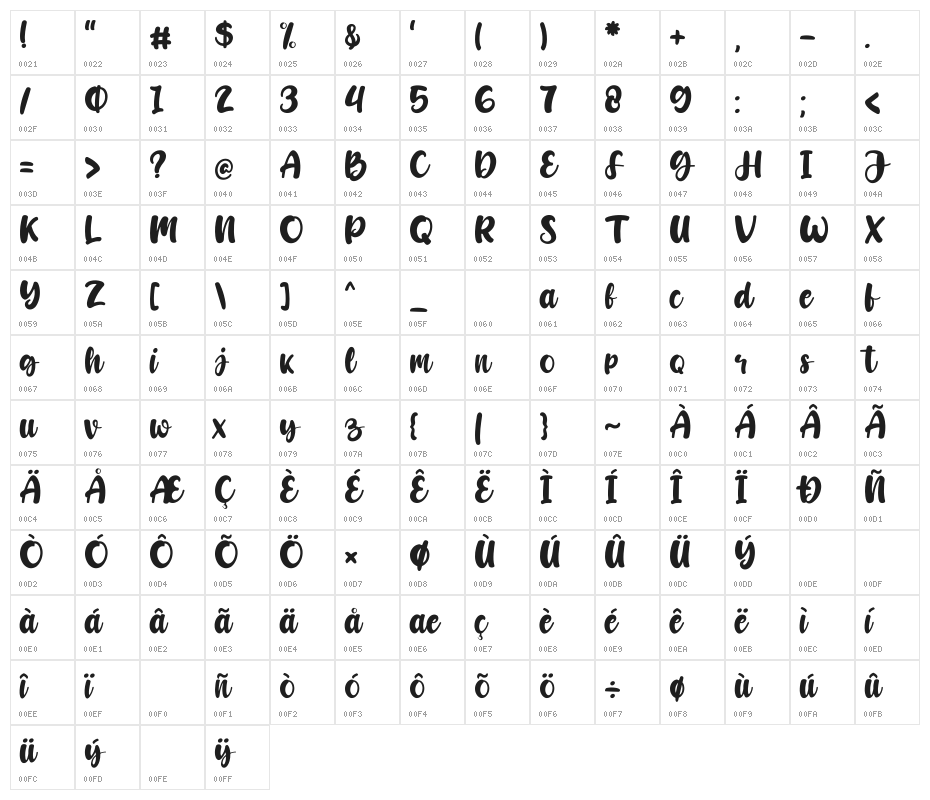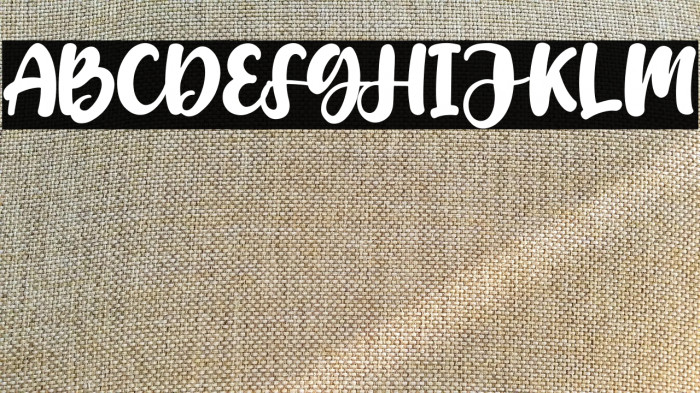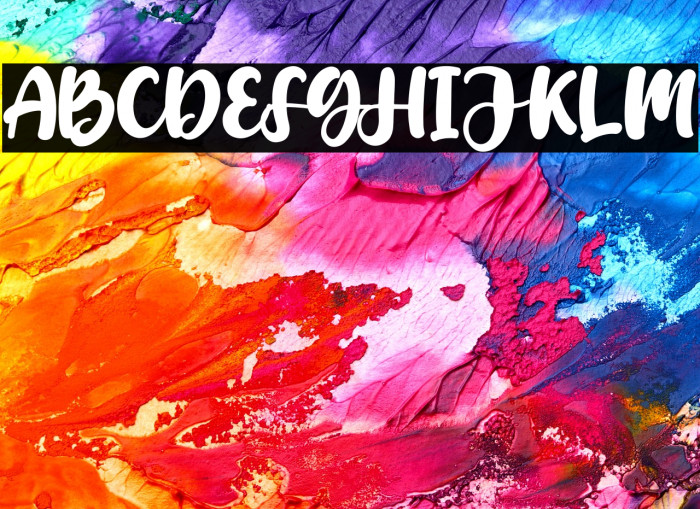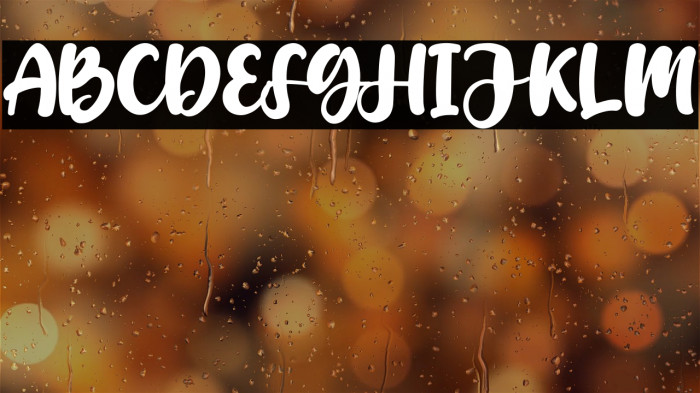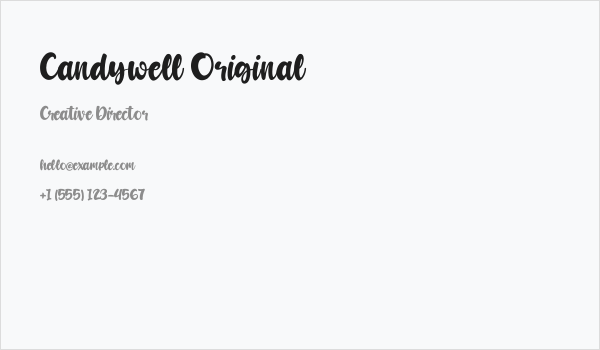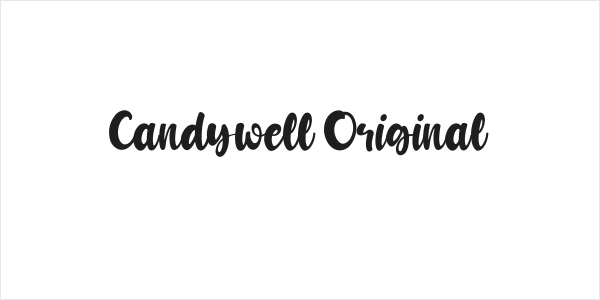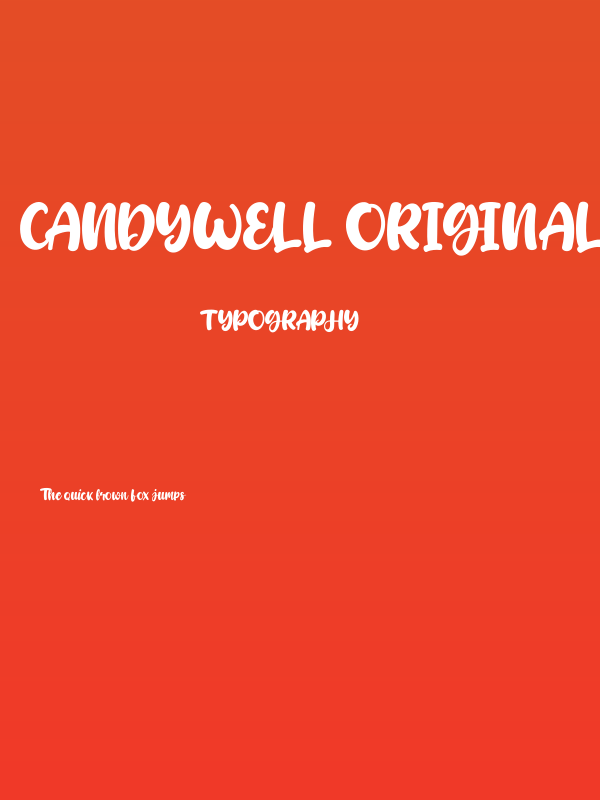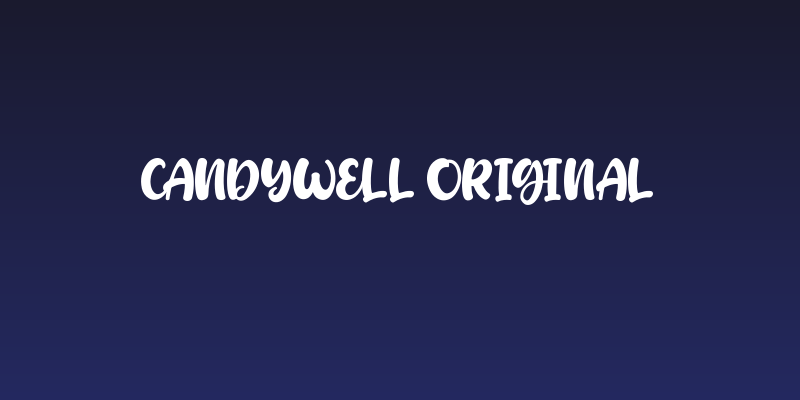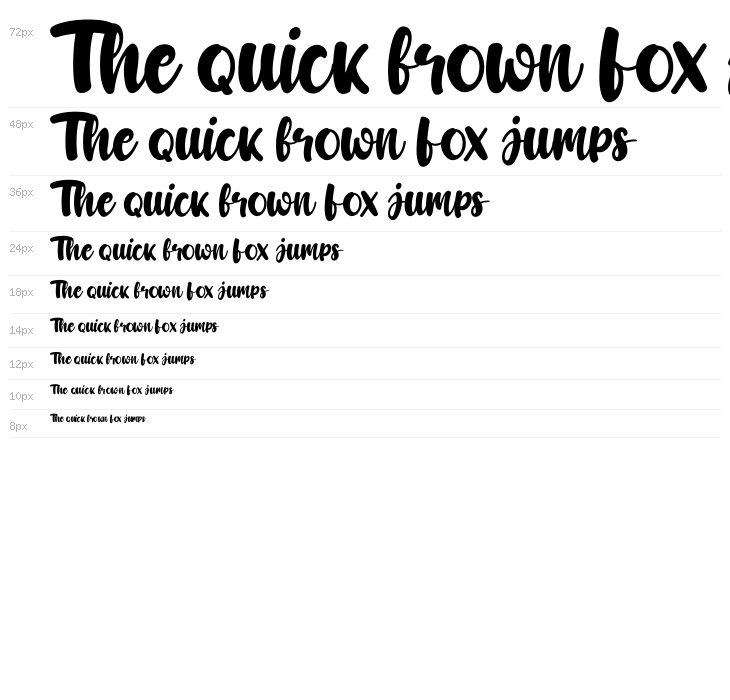
Candywell Original Font
Candywell Original Description
This font features a bold and playful script style with a handwritten appearance. The characters are rounded and connected, giving a sense of fluidity and movement. The uppercase letters are slightly larger and more pronounced, while the lowercase letters maintain a consistent flow. Numbers and special characters are designed to match the playful and bold aesthetic, making them stand out. The overall look is casual yet stylish, suitable for projects that require a touch of personality and flair.
| Proposed Projects | Ideal for greeting cards, invitations, branding, and social media graphics. |